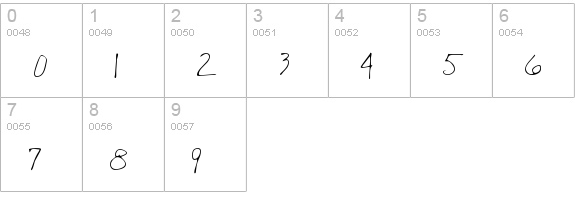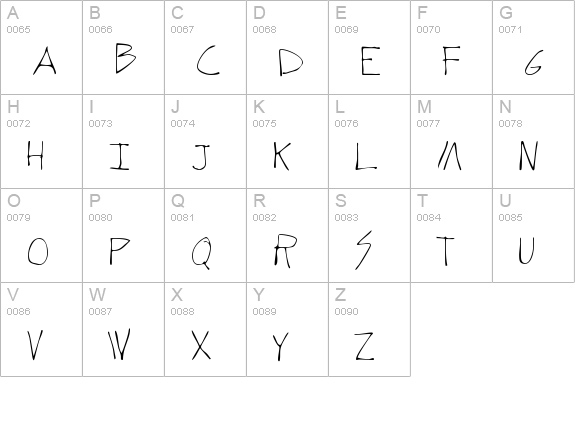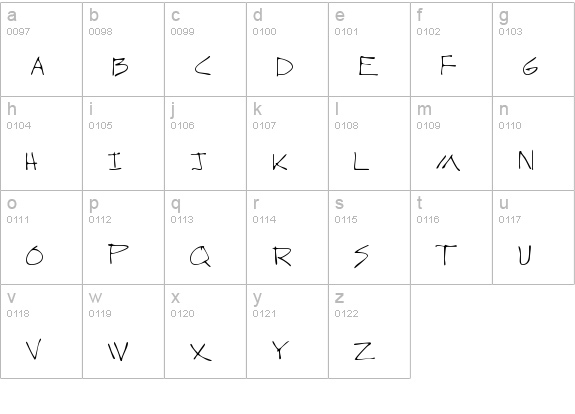
WebstersHand Font Details
WebstersHand font is a beautiful and unique typeface that captures the essence of handwriting in a digital form. With its fluid strokes and natural curves, this font brings a touch of elegance and authenticity to any design project. Whether used for invitations, logos, or editorial layouts, WebstersHand adds a personal and intimate feel to the text. What makes WebstersHand even more appealing is that it is available for free download at FontsMarket.com. Yes, you read that right, this incredible font is freely available for anyone to download and use in their creative endeavors. So whether you're a professional designer looking to add a special touch to your work or an individual looking to enhance your personal projects, WebstersHand is the perfect choice. With its extensive character set and various ligatures, WebstersHand offers versatility and flexibility in creating visually stunning and expressive typography. The attention to detail in each letterform showcases the craftsmanship and skill that went into designing this font. WebstersHand is a true gem in the world of typography, combining the charm of handwritten script with the convenience and accessibility of a digital font. It effortlessly brings a sense of warmth and character to any text, making it stand out from the crowd. So why wait? Head over to FontsMarket.com and experience the beauty and elegance of WebstersHand font for yourself. Download it for free and let your creativity soar as you explore the endless possibilities this font has to offer.